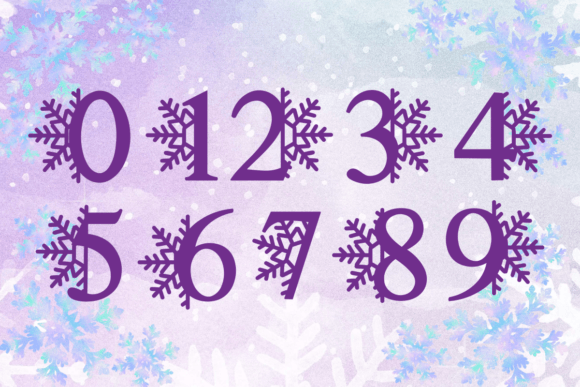
Christmas Snowflakes Font
Christmas Snowflakes is a decorative font with a snowflake design on one side of each letter. The snowflakes add a festive touch, making it perfect for holiday-themed projects.